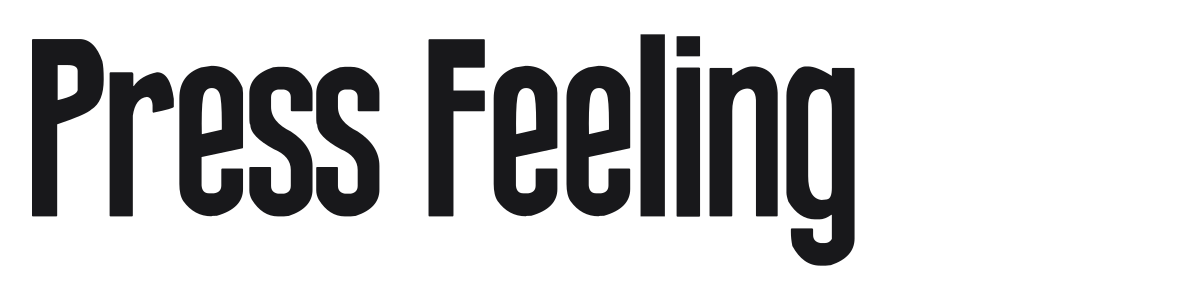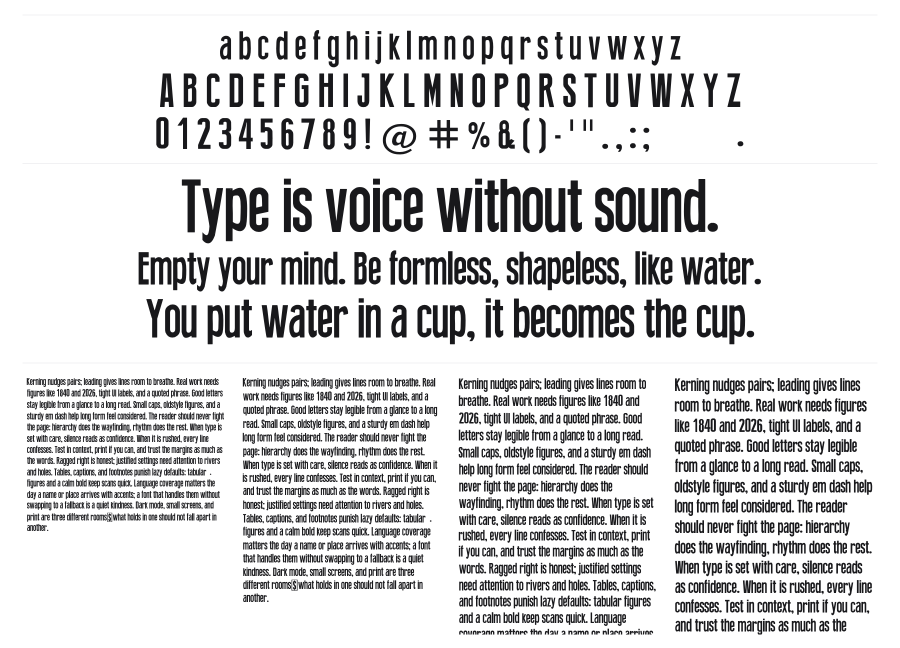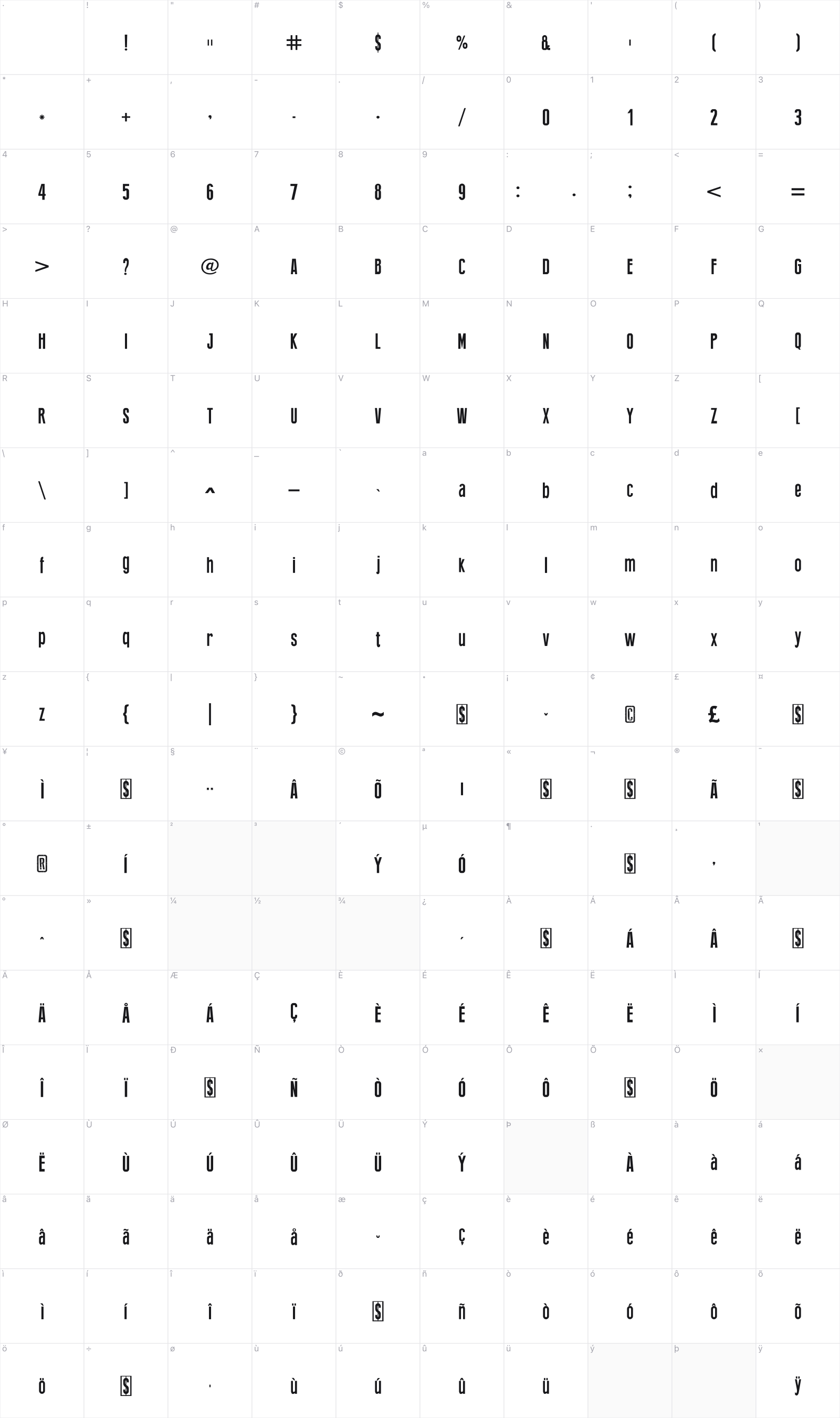
Press Feeling
Press Feeling is a heavy condensed grotesque sans with bold, tightly packed characters that carry a strong newspaper headline energy. The near-monoweight strokes and upright posture keep it legible at large sizes while the extreme condensing makes it efficient on the page. A solid workhorse for bold editorial titles, sports graphics, and poster layouts.